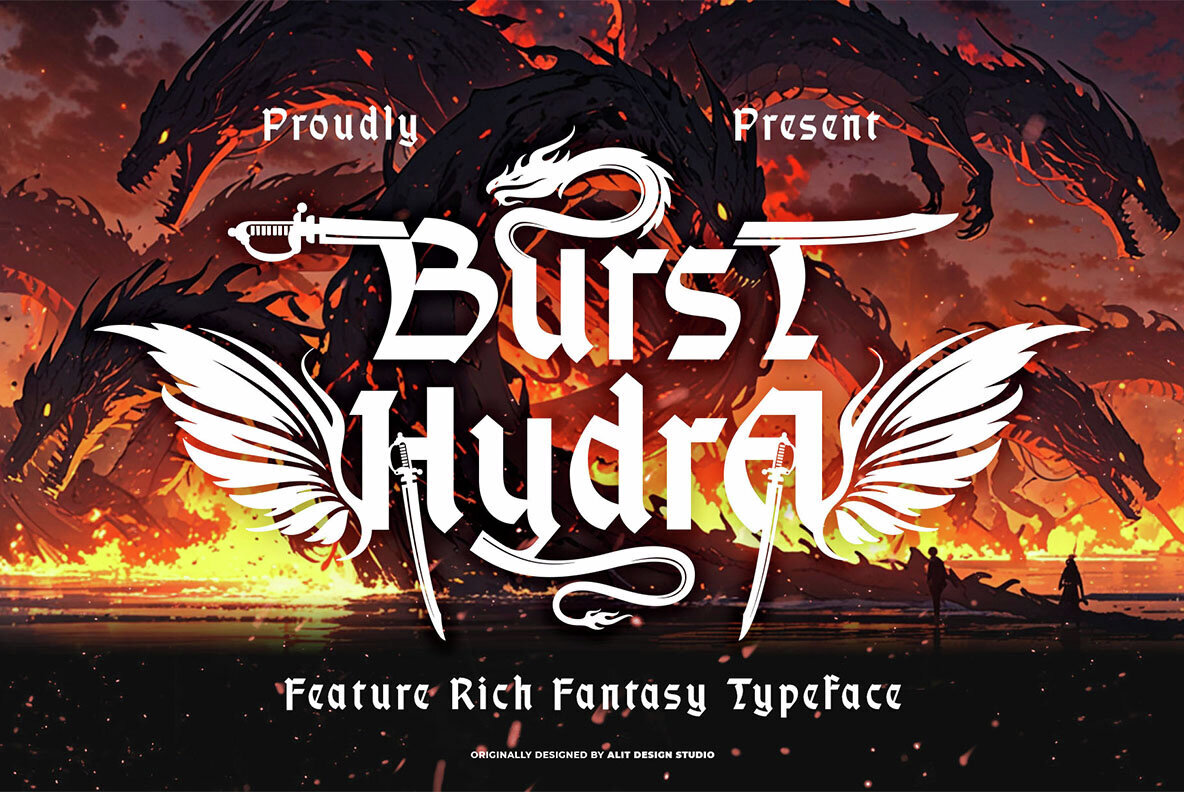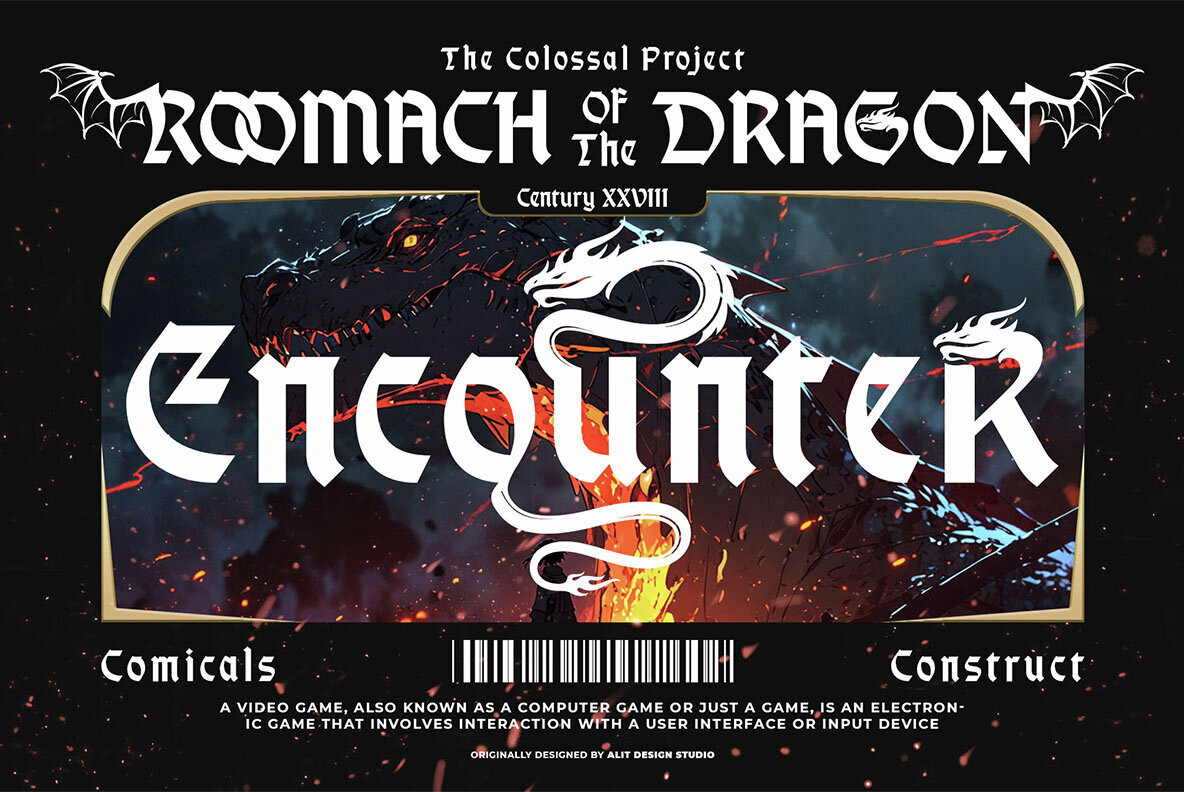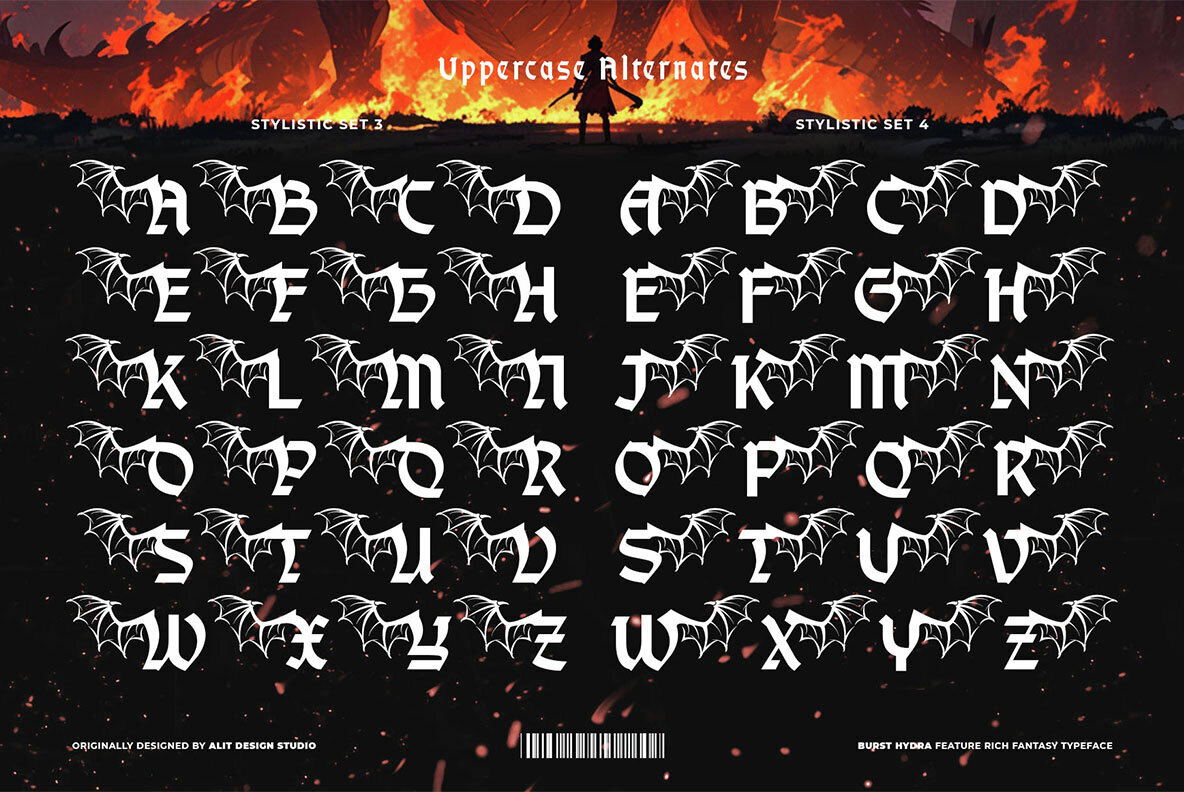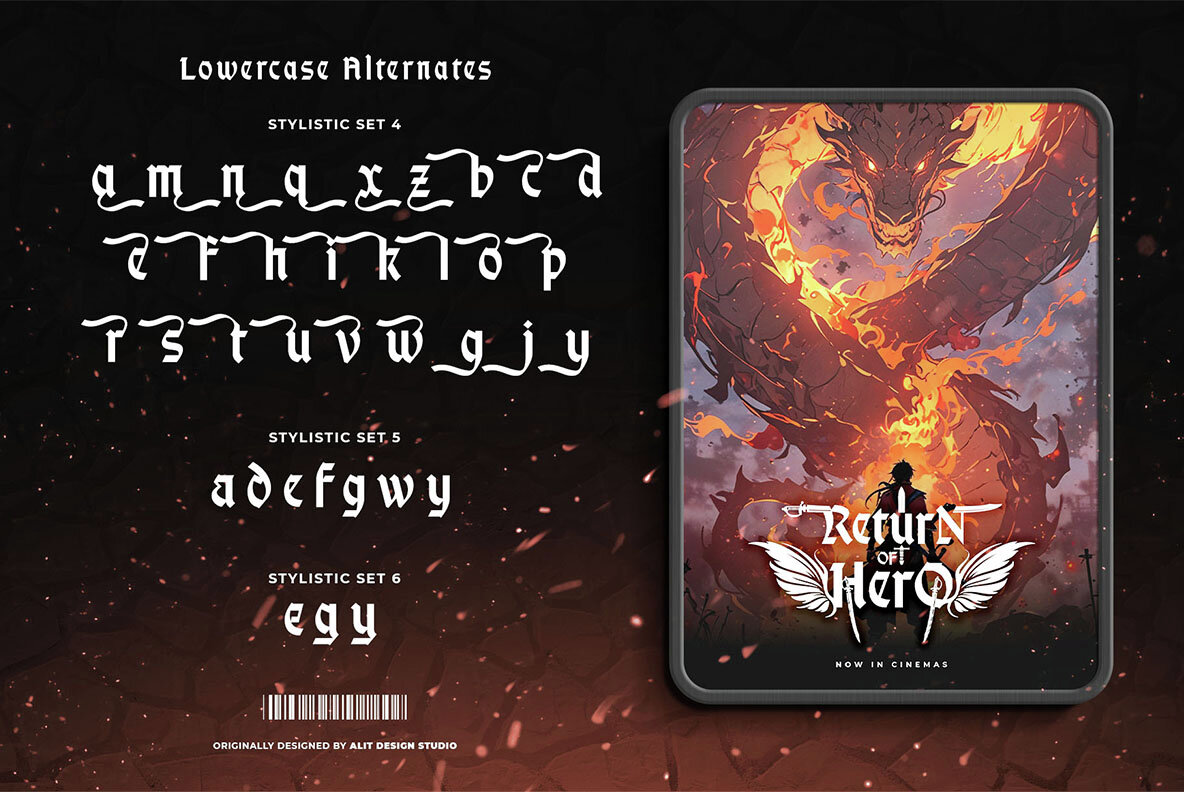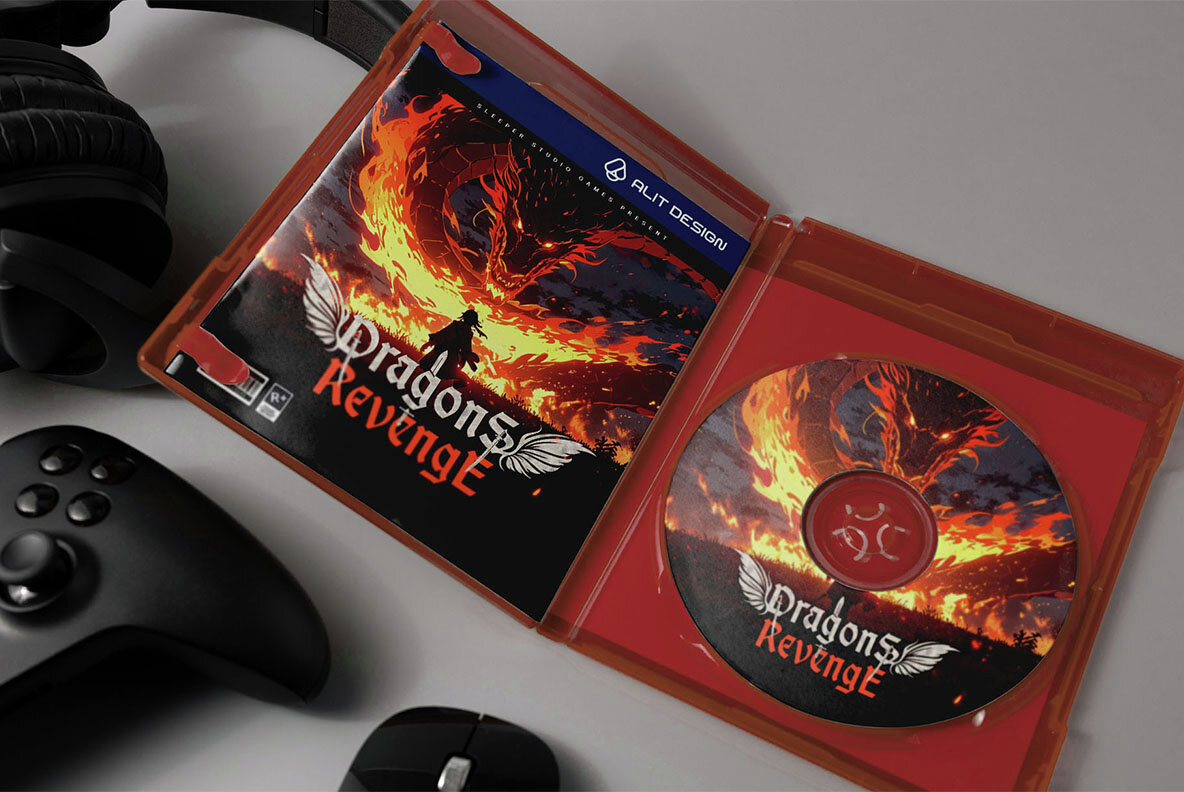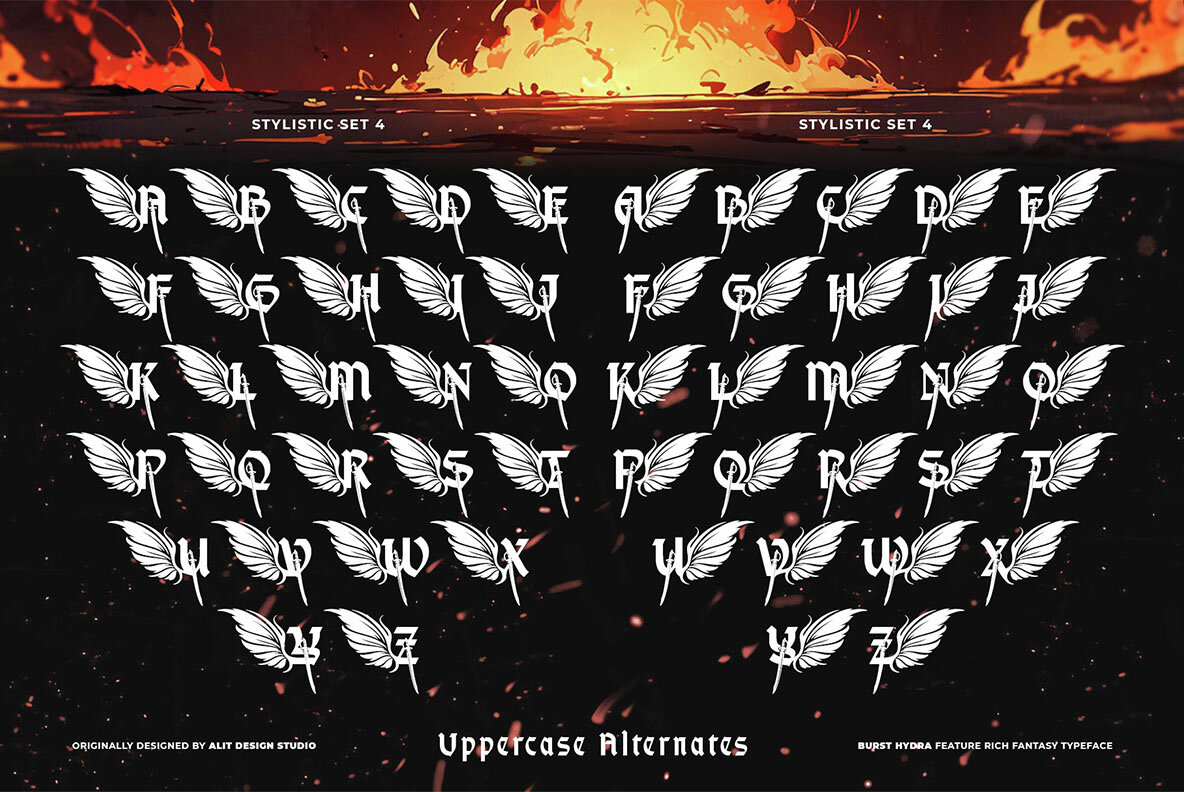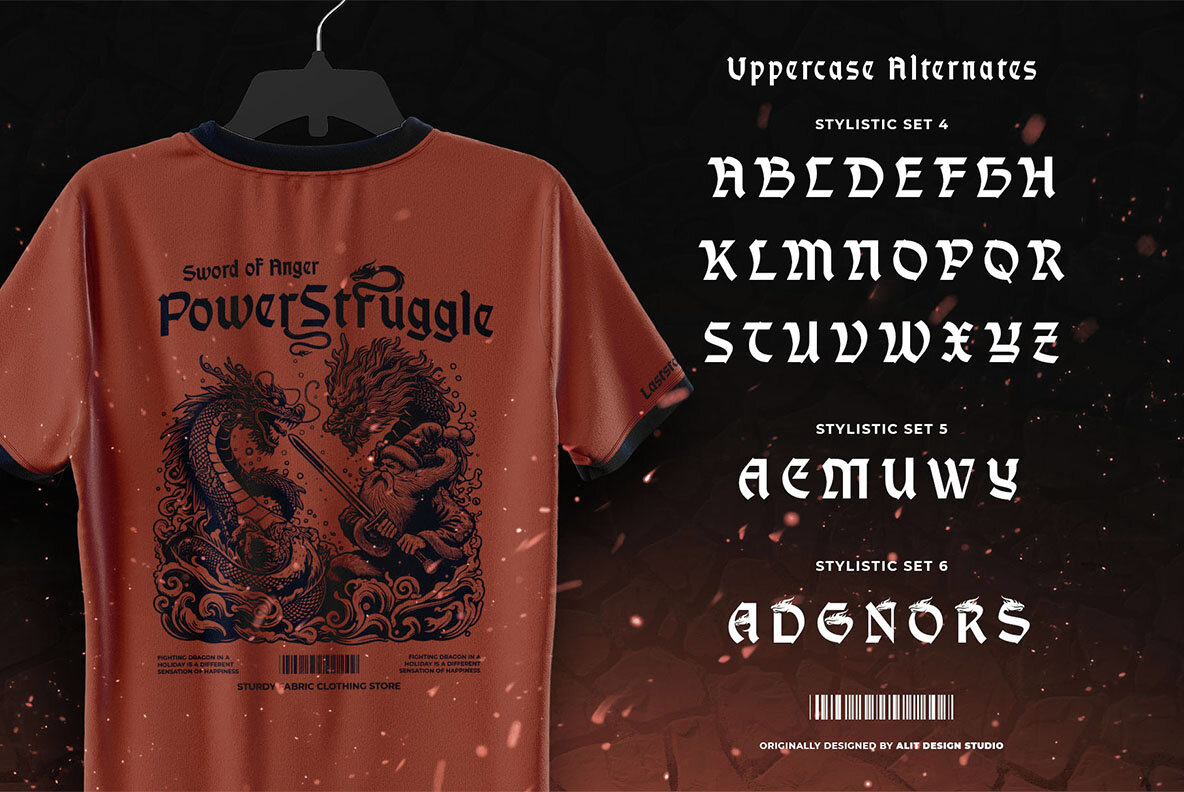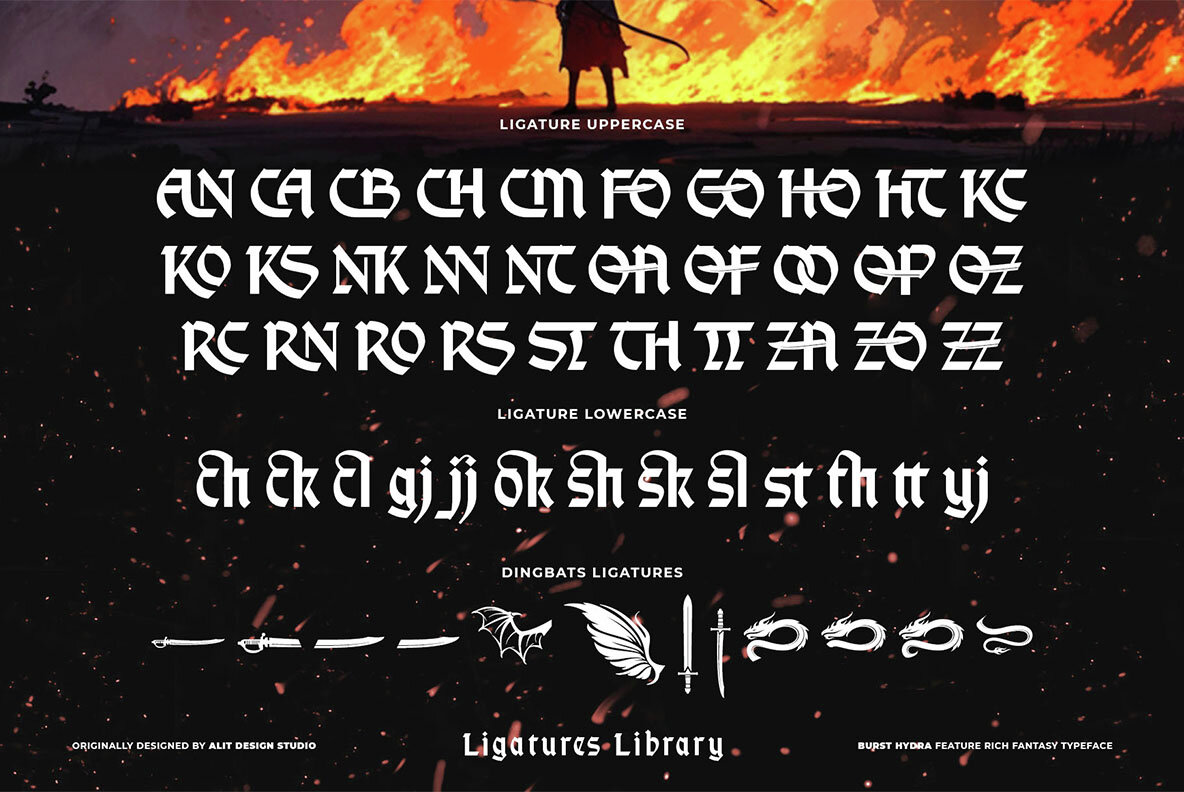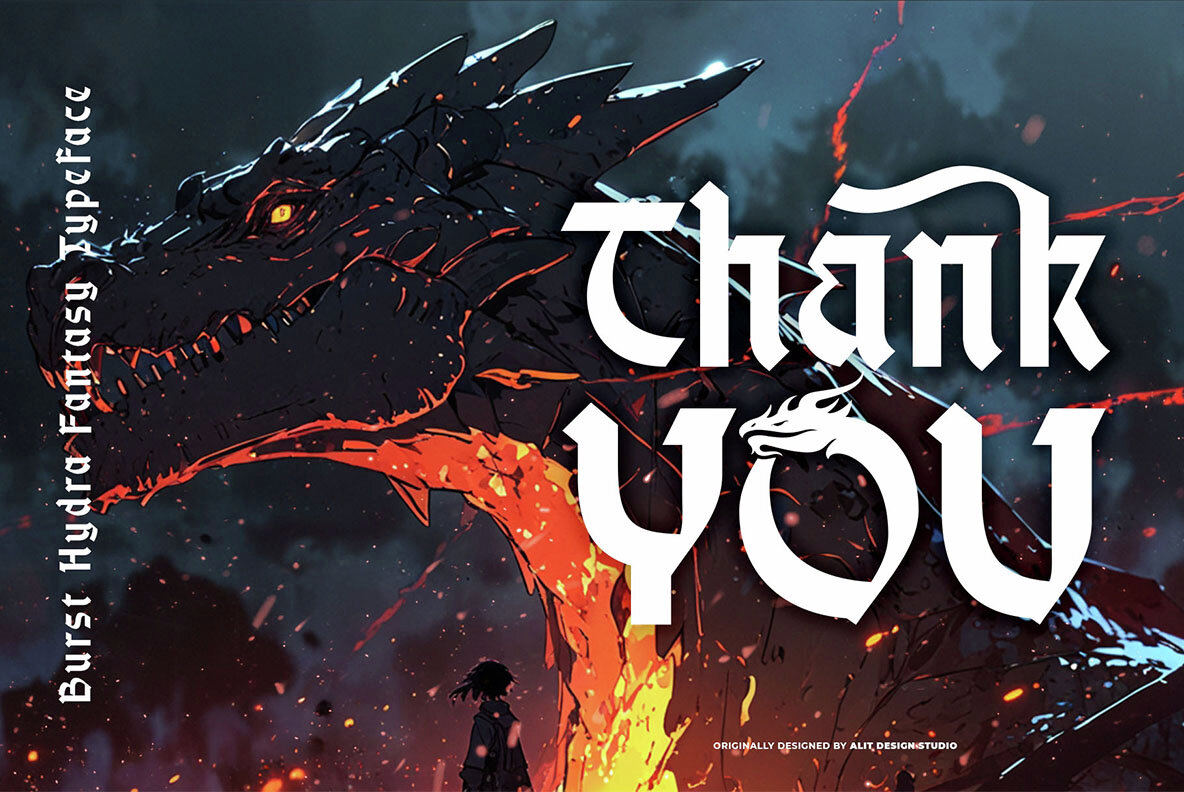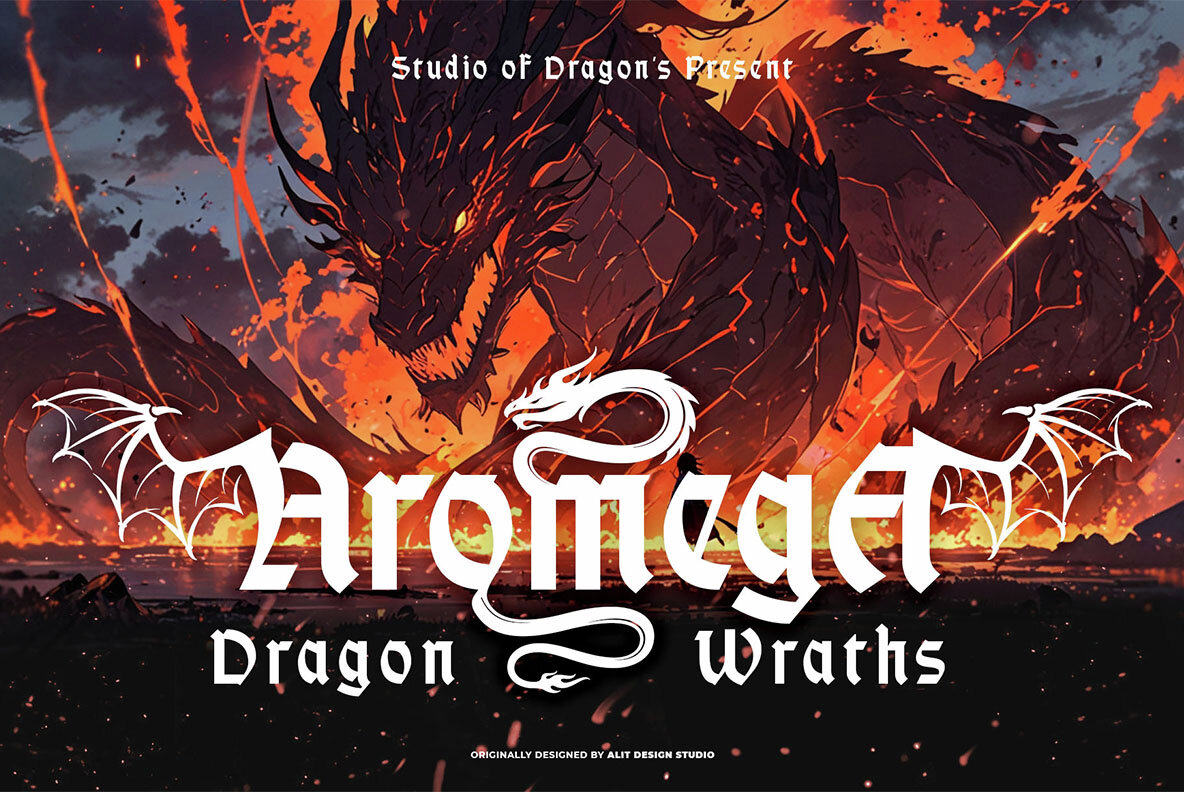
Brust Hydra Font
Burst Hydra Regular
Embrace the ancient allure with Brust Hydra, a typeface steeped in mythology and legend. Combining semi-blackletter styling with elegant serif details, this bold and heroic font is designed to make a commanding impression. Perfect for titles, logos, posters, game interfaces, and fantasy-themed branding, Brust Hydra exudes the valor of Greek heroes and the formidable power of mythical beasts like the Hydra. Crafted with sharp edges and sleek curves, every letter embodies the armor, swords, and wings of legendary warriors and creatures. Brust Hydra captivates with decorative elements including sabers, flame motifs, and dragon insignias, adding depth and drama to your visual storytelling. It's the ideal choice for design projects that demand an air of strength and sophistication. Originally presented by Alit Design Studio, Brust Hydra is more than a font—it's a visual saga ready to unfold. Elevate your typography and let it evoke powerful myths and legends. Choose Brust Hydra for your next design adventure.Brust Hydra: A Feature-Rich Fantasy Typeface